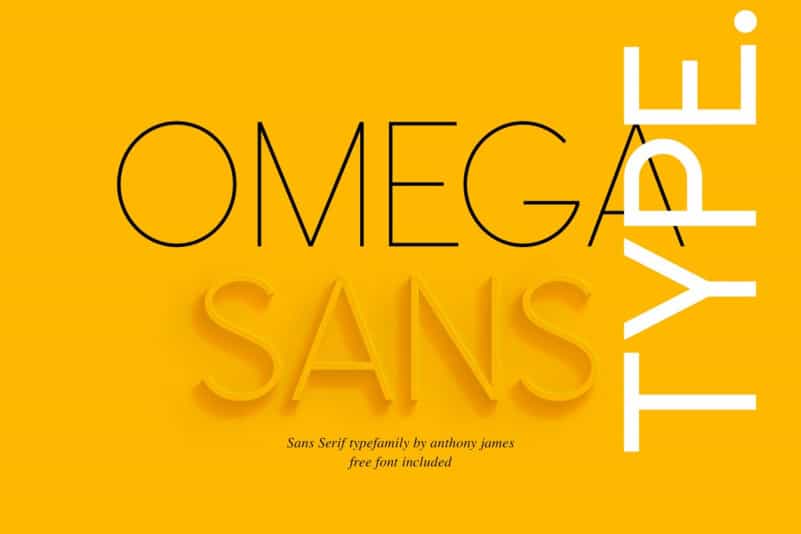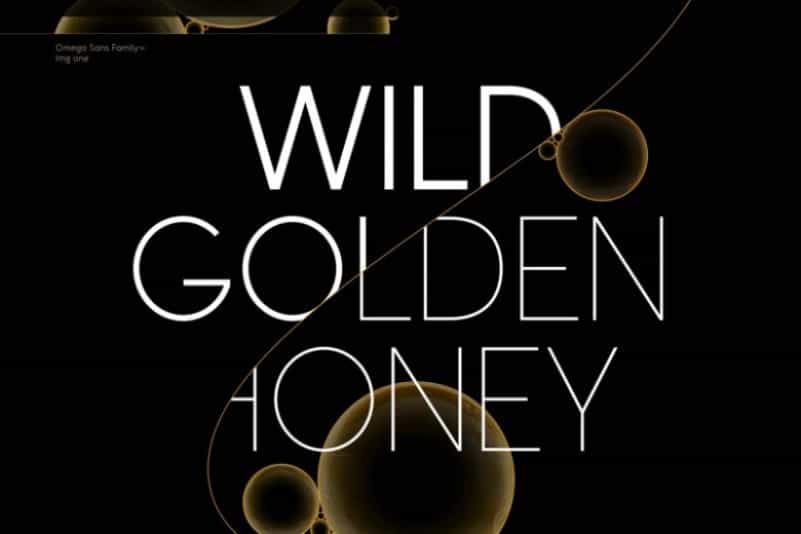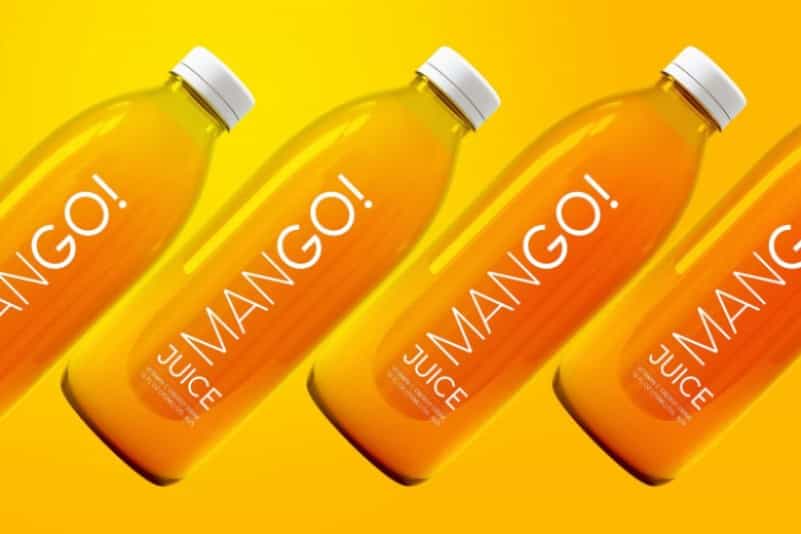
Omega – is a modern Sans Serif with 4 Weights. With its proportioned pair of lighter weights, Omega makes an elegantly balanced typeface for headlines and all displays! This dgsign is brought to you by Anthony James.